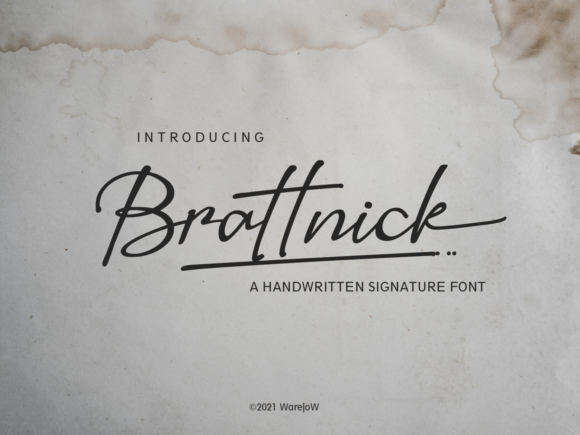
The Brattnick Font: A Unique and Elegant Handwritten Delight
I’ll never forget the time I was working on a wedding invitation project, and my client asked for a font that was both elegant and personalized. I scoured the internet, tried out countless fonts, but nothing seemed quite right. That was until I stumbled upon the Brattnick font. It was love at first sight! 💕
Brattnick is a unique and elegant handwritten font that has become a staple in my design toolkit. Its versatility and charm make it perfect for a variety of designs, from wedding invitations and thank you cards to logos and greeting cards.
What I Love About Brattnick ✨
• 💫 Unique and elegant handwritten style
• 🎨 Perfect for designs requiring a personalized touch
• 👍 Highly legible and versatile
Honest Review: The Good and the Not-So-Good ⚠️
While Brattnick is an amazing font, it’s not without its quirks. Here are a few things to keep in mind:
• 🤔 Limited availability of certain characters, but this can be worked around with glyphs and swashes
• ⚠️ May not be suitable for very large or very small text sizes due to its handwritten nature
The Story Behind Brattnick
Brattnick was designed with the intention of creating a unique and elegant handwritten font that would add a touch of personality to any design. The designer wanted to create a font that was both beautiful and highly legible, making it perfect for a variety of design applications.
Q: Is Brattnick suitable for body text?
A: While Brattnick is a beautiful font, it’s best suited for display text or headings. Its handwritten nature may make it less suitable for large blocks of body text.